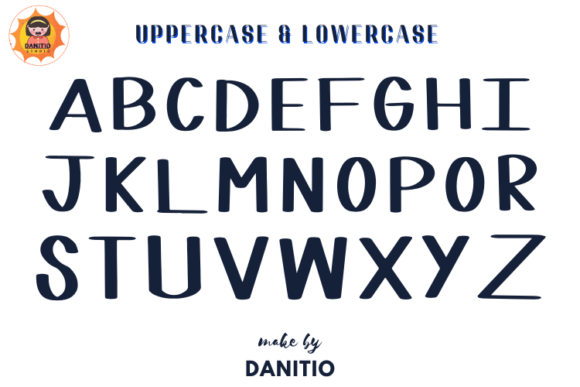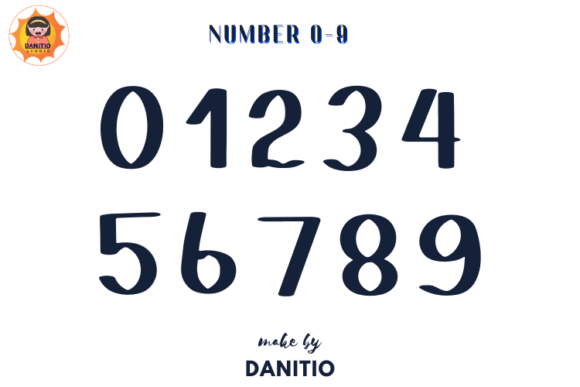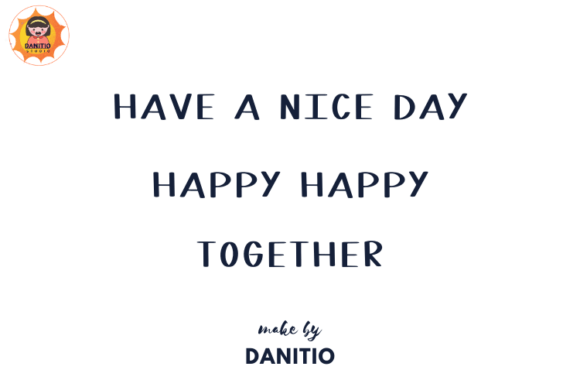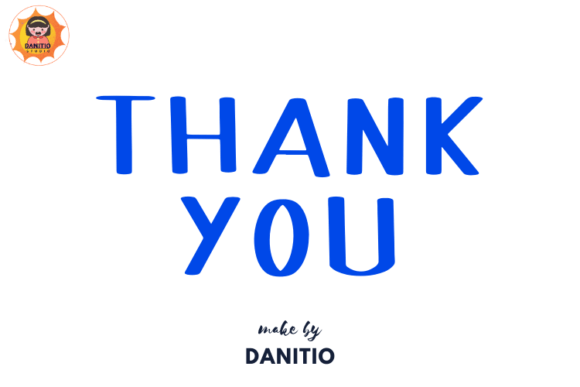
Introducing City Font: The Perfect Handwritten Font for Your Creative Projects
Are you a designer, crafty person, or simply someone who loves to create visually appealing content? Look no further! We’re excited to introduce City Font, a beautiful, handwritten font that’s perfect for a wide range of projects. In this article, we’ll dive into the features and benefits of City Font, and explore how it can elevate your designs.
What is City Font?
City Font is a cute, handwritten font that’s simple, calm, easy to read, and balanced. Its gentle curves and soft lines make it a joy to look at, and its clarity ensures that your message gets across with ease. Whether you’re working on a social media post, invitation, flyer, poster, or any other project, City Font is the perfect choice.
Key Features of City Font
- Handwritten style: City Font has a charming, handwritten feel that’s perfect for creating personal and engaging content.
- Simple and calm: The font’s simplicity and calmness make it easy to read and understand, even at small sizes.
- Balanced: City Font is carefully crafted to ensure that it’s balanced and visually appealing, making it perfect for a wide range of applications.
- Easy to read: The font’s clear and legible design ensures that your message gets across quickly and easily.
City Font is incredibly versatile, and can be used for a wide range of projects, including:
- Social media: Use City Font to create eye-catching social media posts that grab attention and engage your audience.
- Invitations: Add a personal touch to your invitations with City Font’s charming, handwritten style.
- Flyers: Create flyers that stand out with City Font’s bold and balanced design.
- Posters: Use City Font to create stunning posters that showcase your message in a clear and visually appealing way.
- And more!: City Font is perfect for any project that requires a personal and engaging touch.
Why Choose City Font?
With so many fonts to choose from, why should you choose City Font? Here are just a few reasons:
- Unique style: City Font has a unique, handwritten style that’s sure to stand out from the crowd.
- Ease of use: City Font is incredibly easy to use, even for those with limited design experience.
- Flexibility: City Font can be used for a wide range of projects, making it a great addition to any designer’s toolkit.
- High-quality design: City Font is carefully crafted to ensure that it’s of the highest quality, with clear and legible lines.
In conclusion, City Font is a beautiful, handwritten font that’s perfect for designers, crafters, and anyone who loves to create visually appealing content. Its simple, calm, and balanced design makes it easy to read and understand, while its unique style ensures that your message stands out from the crowd. Whether you’re working on a social media post, invitation, flyer, poster, or any other project, City Font is the perfect choice. So why wait? Download City Font today and start creating stunning designs that engage and inspire your audience!